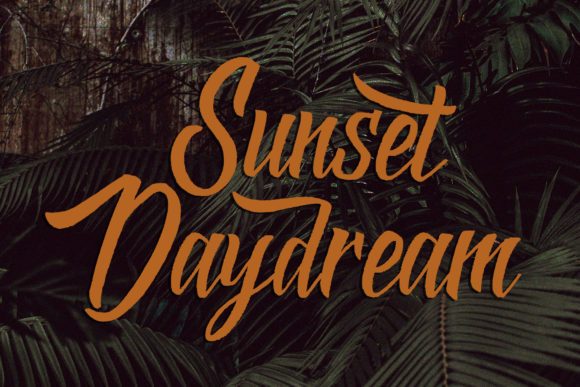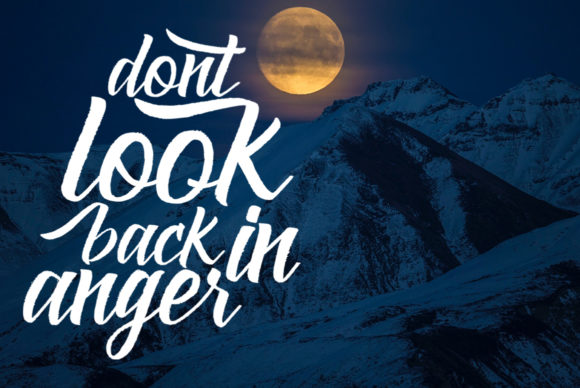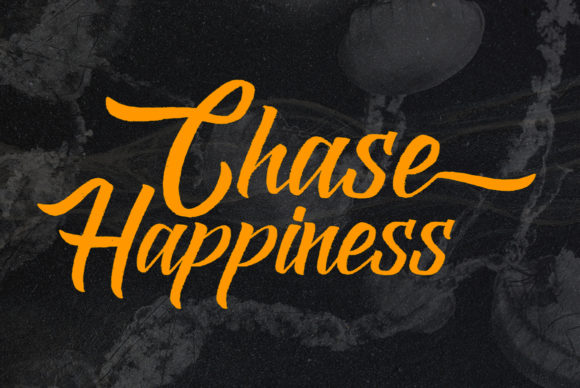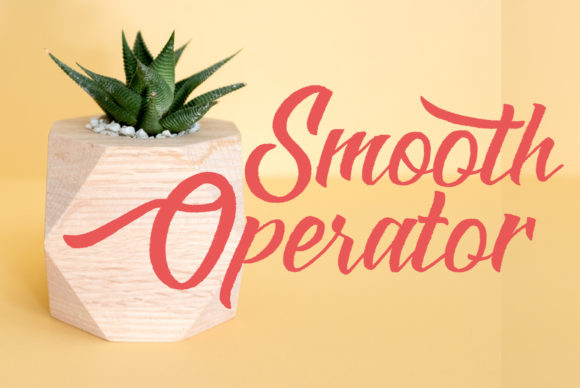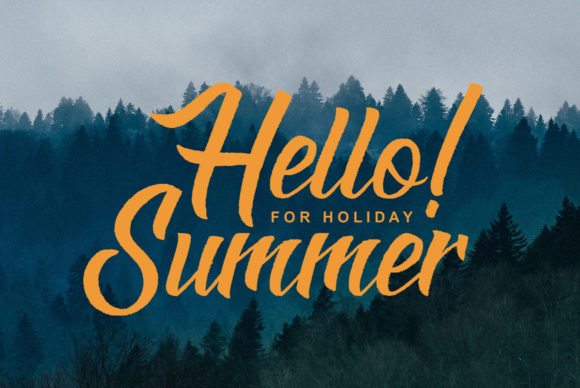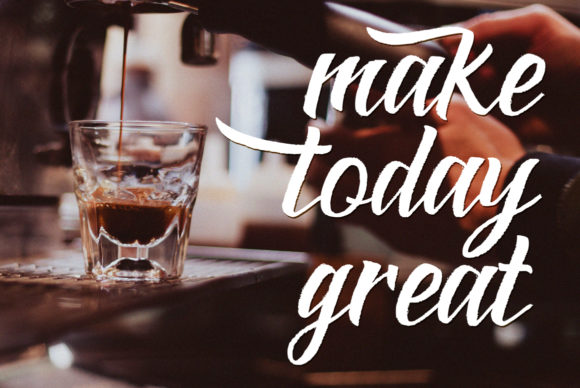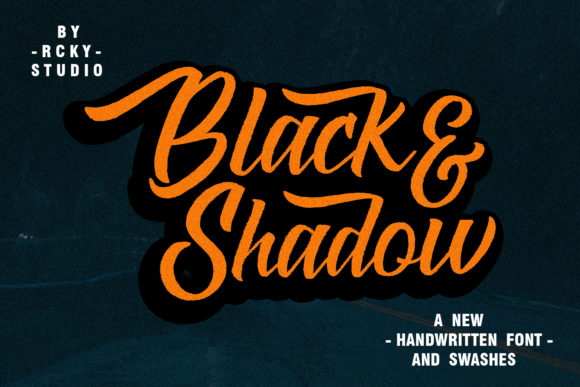
The Ultimate Guide to Black & Shadow Font: A Vintage-Inspired Design Essential
It was love at first sight! The unique blend of boldness and whimsy, paired with its authentic vintage feel, instantly captured the essence of my project. In this article, I’ll share my experience with Black & Shadow font, its features, and how to make the most of it in your designs.
An Honest Review of Black & Shadow Font
- ✅ Unique and eye-catching: Black & Shadow font stands out from the crowd with its bold and authentic vintage feel.
- ✅ Highly versatile: Perfect for a wide range of design projects, from craft and hobby projects to commercial designs.
- ✅ Easy to read: Despite its boldness, the font remains clear and legible, even in smaller sizes.
- ✅ Fun and creative: The font’s playful vibe makes it ideal for designs that require a touch of personality.
While Black & Shadow font is an excellent choice for many designs, there are a few things to keep in mind:
- ⚠️ Not suitable for body text: Due to its boldness, Black & Shadow font is best used for headlines, titles, or short paragraphs.
- ⚠️ Limited use in formal designs: The font’s playful nature makes it less suitable for formal or professional designs that require a more traditional look.
The Backstory Behind Black & Shadow Font
Black & Shadow font was designed with the intention of capturing the essence of vintage design. The font’s creator drew inspiration from classic signs, posters, and advertisements from the early 20th century. The result is a unique and authentic font that adds a touch of nostalgia to any design.
Q: What type of designs is Black & Shadow font best suited for?
A: Black & Shadow font is perfect for designs that require a bold and authentic vintage feel, such as craft projects, posters, and social media graphics.
Q: Is Black & Shadow font easy to read?
A: Yes, despite its boldness, Black & Shadow font remains clear and legible, even in smaller sizes.
Q: Can I use Black & Shadow font in digital designs?
A: Absolutely! Black & Shadow font is versatile and can be used in a wide range of digital designs, from social media graphics to website headers.